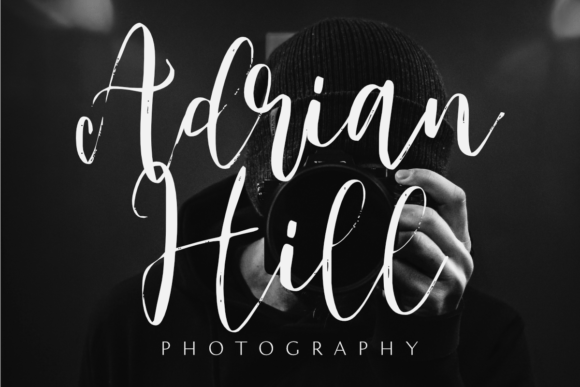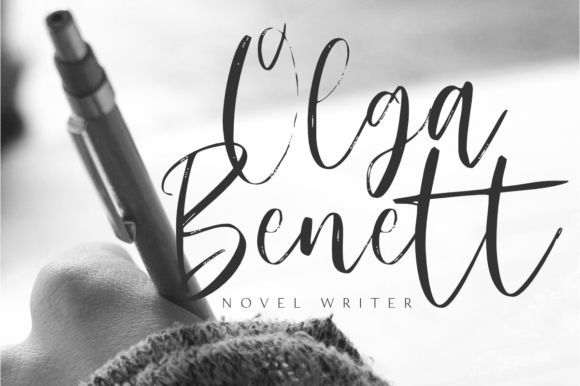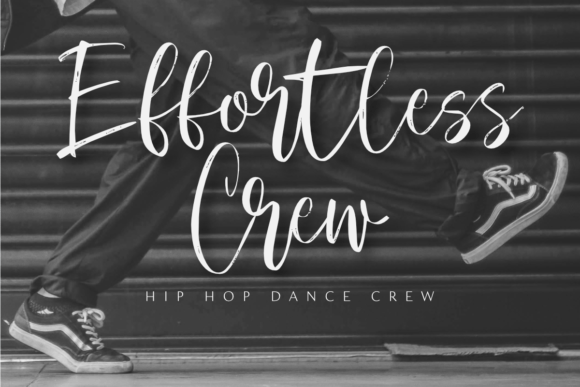
Introduction to Ourselves Font
As a designer, there’s nothing quite like the rush of discovering a new, versatile font that elevates your creative project to the next level. For me, that moment came when I stumbled upon the Ourselves Font – a stunning script font that’s perfect for logos, product packaging, posters, and so much more. Its elegant, flowing lines and high-quality design make it a valuable addition to any design resource.
With its transparent background and sleek aesthetic, the Ourselves Font is a game-changer for designers looking to add a touch of sophistication to their work. And the best part? It’s available for a free download, making it an accessible and affordable choice for creatives of all levels. Whether you’re working on a large-scale branding project or a small-scale personal design, the Ourselves Font is sure to impress.
Key Features of Ourselves Font
- High-quality, unique typography designed for creative projects, available as a free download.
- Features a transparent background, allowing for easy customization and layering in design projects.
- Designed with a high level of detail and precision, resulting in crisp and clear text at resolutions up to 300 DPI.
- Available in various font sizes, from 8pt to 72pt, to suit a range of design applications.
- Perfect for designers and artists looking for a unique design resource to elevate their creative project.
Honest Review: Ourselves Font
I recently had the chance to work with the Ourselves Font, and I must say it’s been a game-changer for my creative projects. This high-quality design resource is perfect for designers and artists looking to add a personal touch to their work.
- Unique and elegant design style that sets it apart from other fonts.
- High-quality vector files that are perfect for print or digital use.
I particularly appreciate the transparent background option, which makes it easy to incorporate into my designs without any distractions. The Ourselves Font is a great addition to any design library, and I’ve already started using it in several projects.
- Limited language support, which may be a concern for designers working on international projects.
- Not ideal for large-scale typography, as the font may become too busy or overwhelming.
Overall, I’m thoroughly impressed with the Ourselves Font, and I highly recommend it to anyone looking for a unique and high-quality design resource. Its free download option and transparent background make it a standout choice for creative projects.
Ourselves Font
Ourselves Font is a high-quality, free design resource that can elevate your creative project to the next level. With a transparent background, this font is perfect for any design need.
Tips for Getting the Most Out of Ourselves Font
Experiment with different font sizes and colors to create a unique and eye-catching design. Use the font in combination with other design elements to create a cohesive look.
Ourselves Font is perfect for social media graphics, blog posts, and marketing materials. Use it to add a touch of elegance and sophistication to your design project.